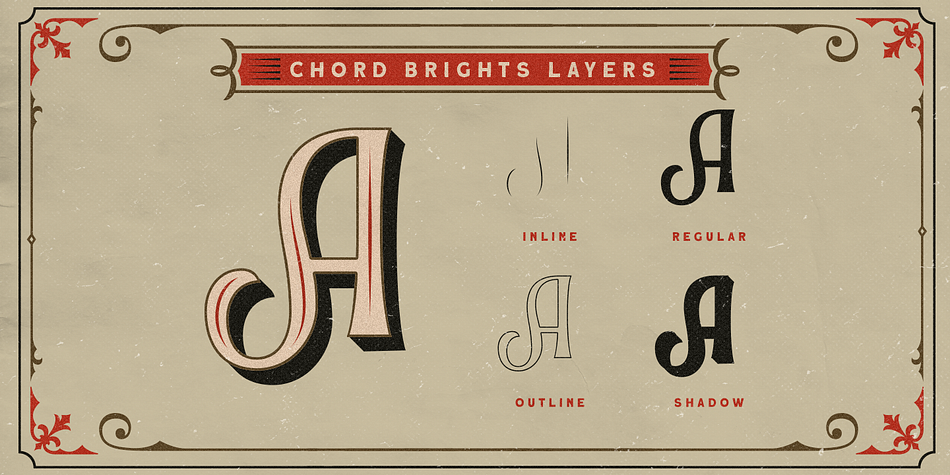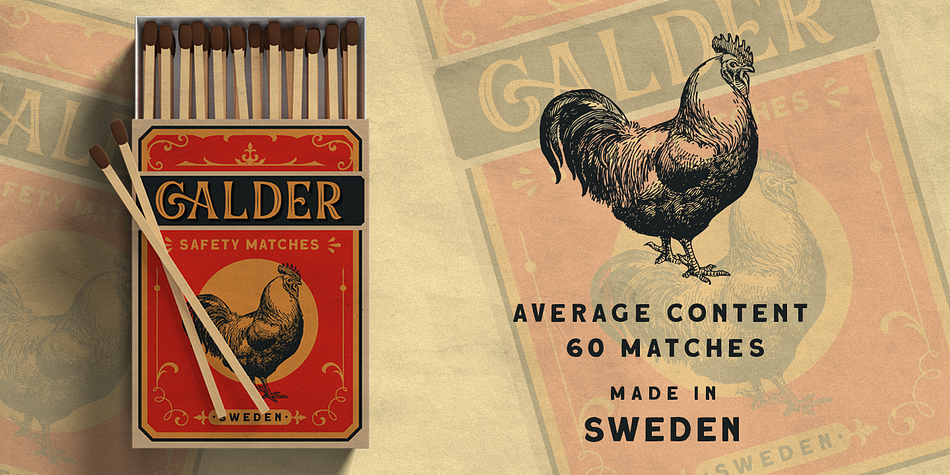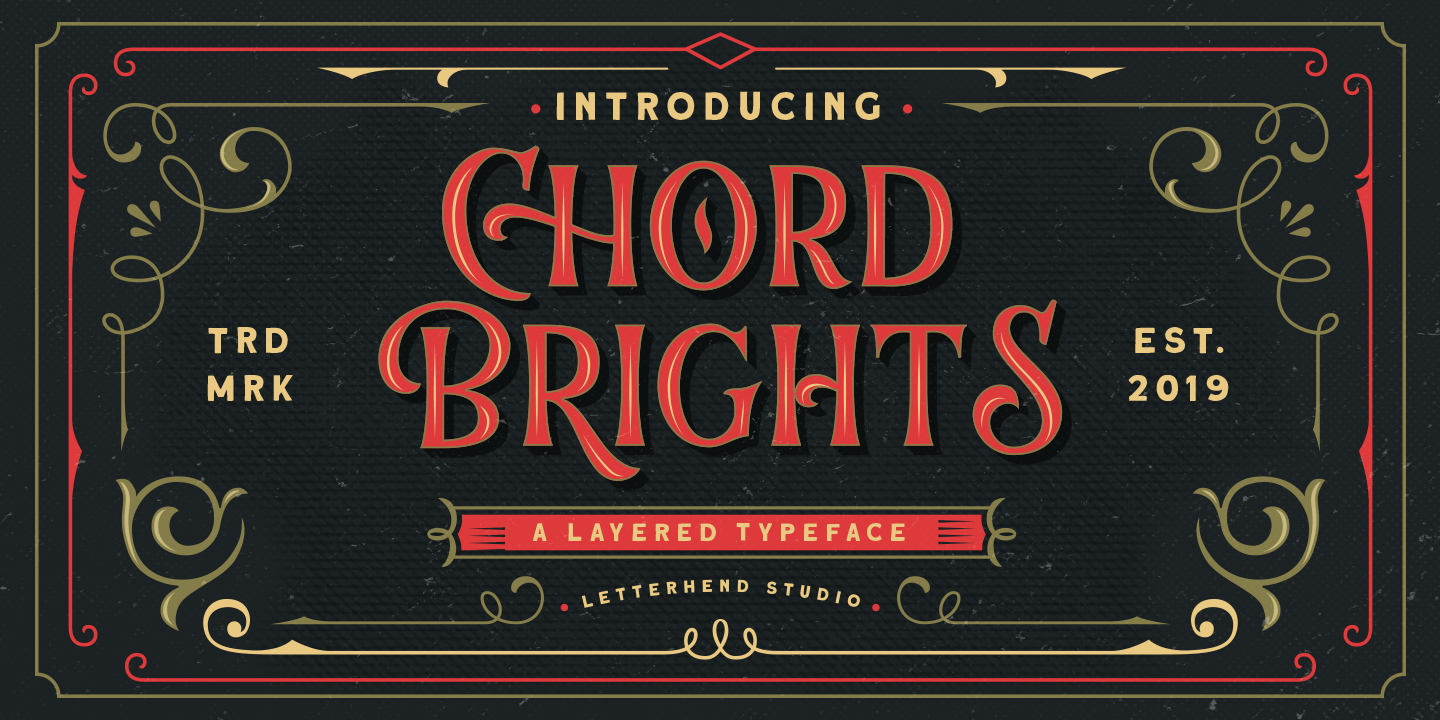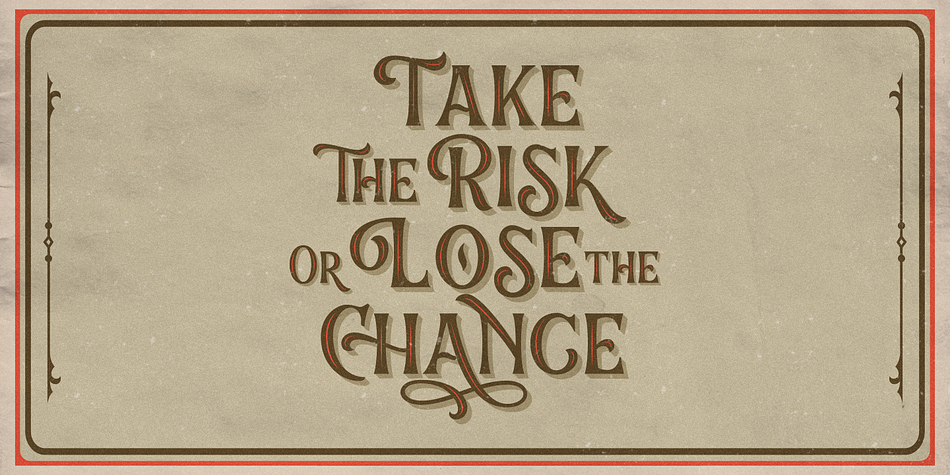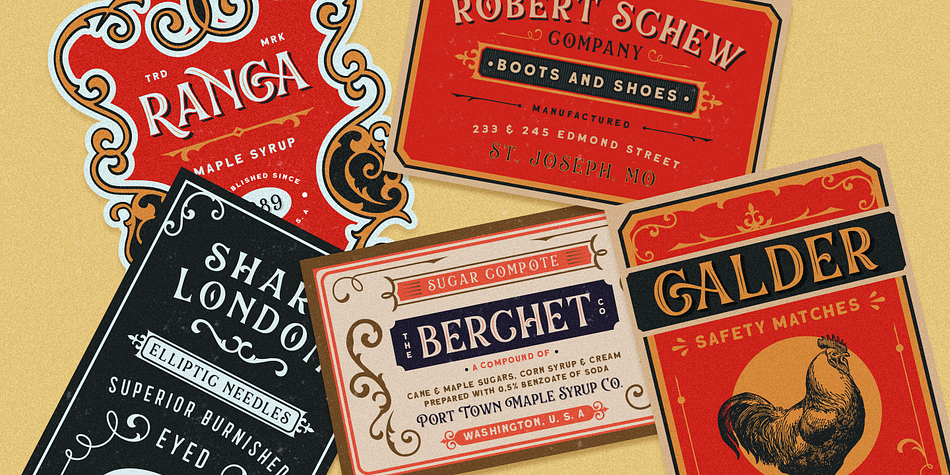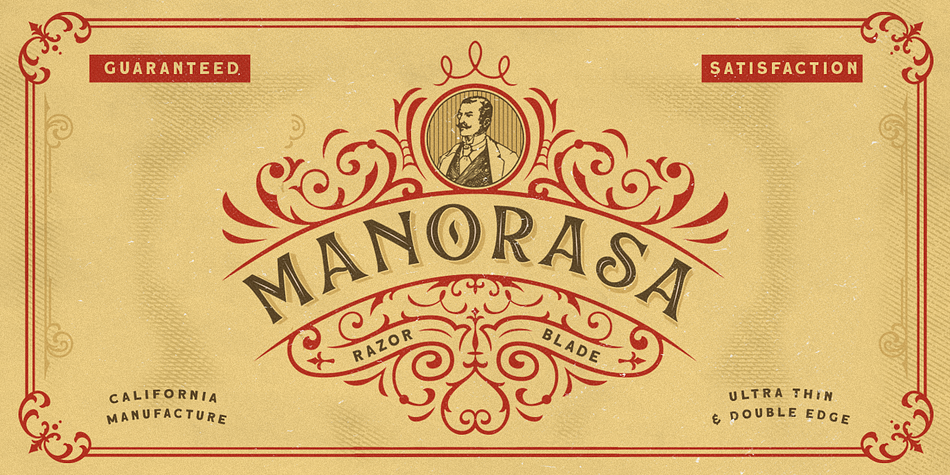
Designed by Hendry Juanda, Chord Brights is a display serif font family. This typeface has four styles and was published by Letterhend Studio.
Introducing, Chord Brights. A one of a kind layered typeface with 4 layers (inline, regular, outline, shadow). This typeface has nostalgic feel because of its style, so the font is really match for your project with retro / vintage theme. Especially because we also provided ornament bonus that can be used just by drag and drop only.
uppercase & lowercase
numbers and punctuation
multilingual
ligatures
alternates
swashes
contextual alternate
| Style | Display Serif |
| Designer | Hendry Juanda |